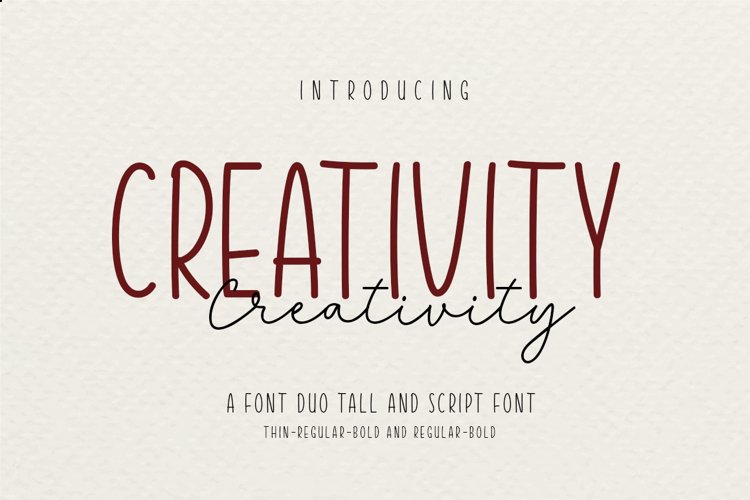
Creativity is a Duo Font. Its natural and unique style makes it a perfect match with the large pool design
and in a sweet and friendly handwritten style. This font is suitable to be combined with various modern designs.
The only limit is your imagination!